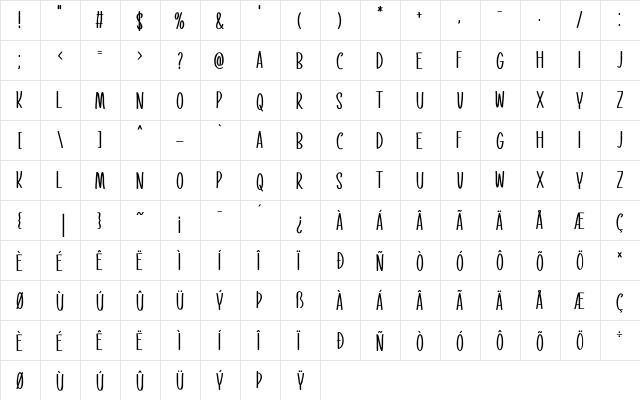
Our Santa Regular
Design Context for Our Santa Typeface
Our Santa takes a measured approach to typography — its balanced proportions and neutral character make it a reliable workhorse for both digital and print work.